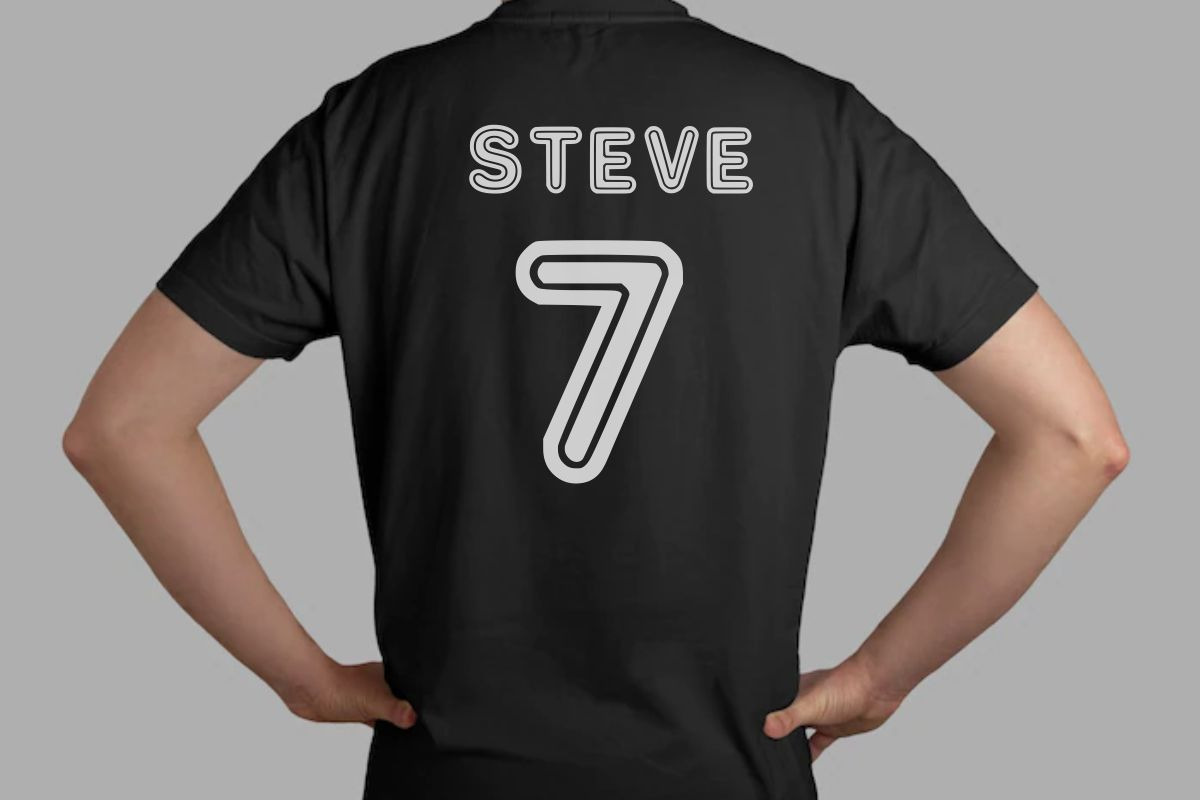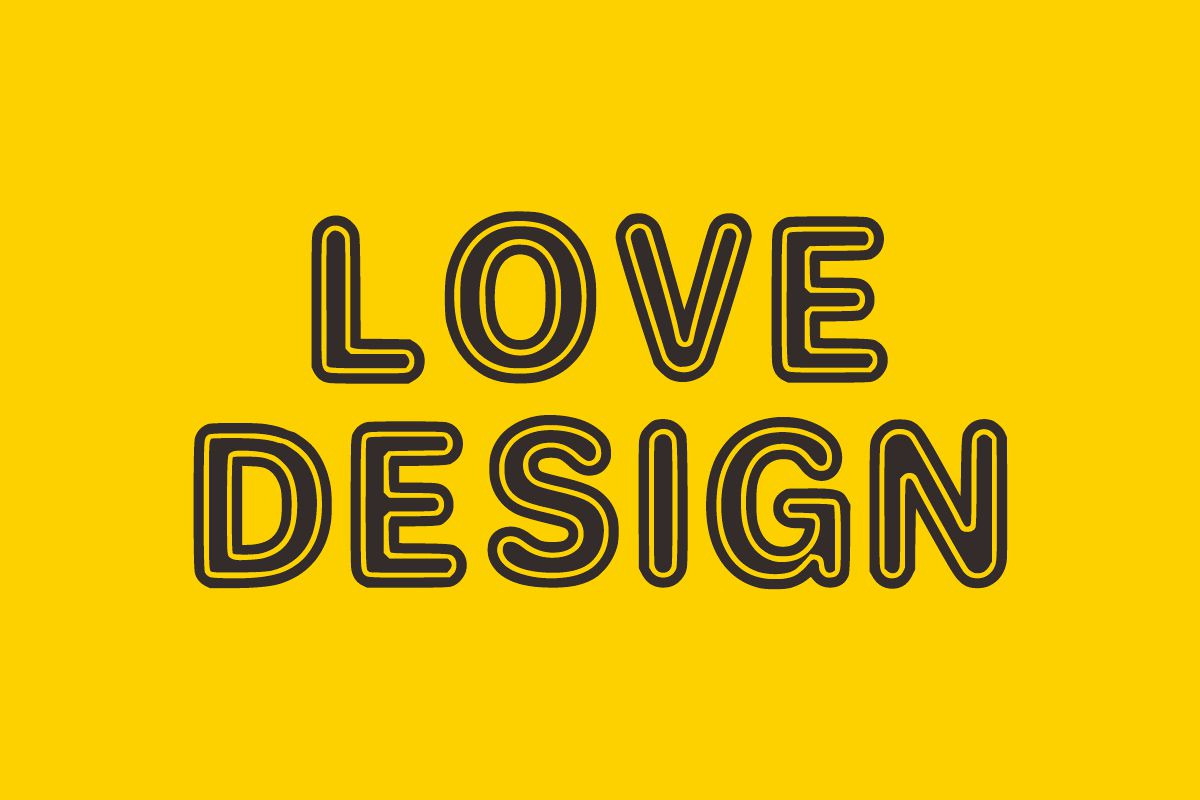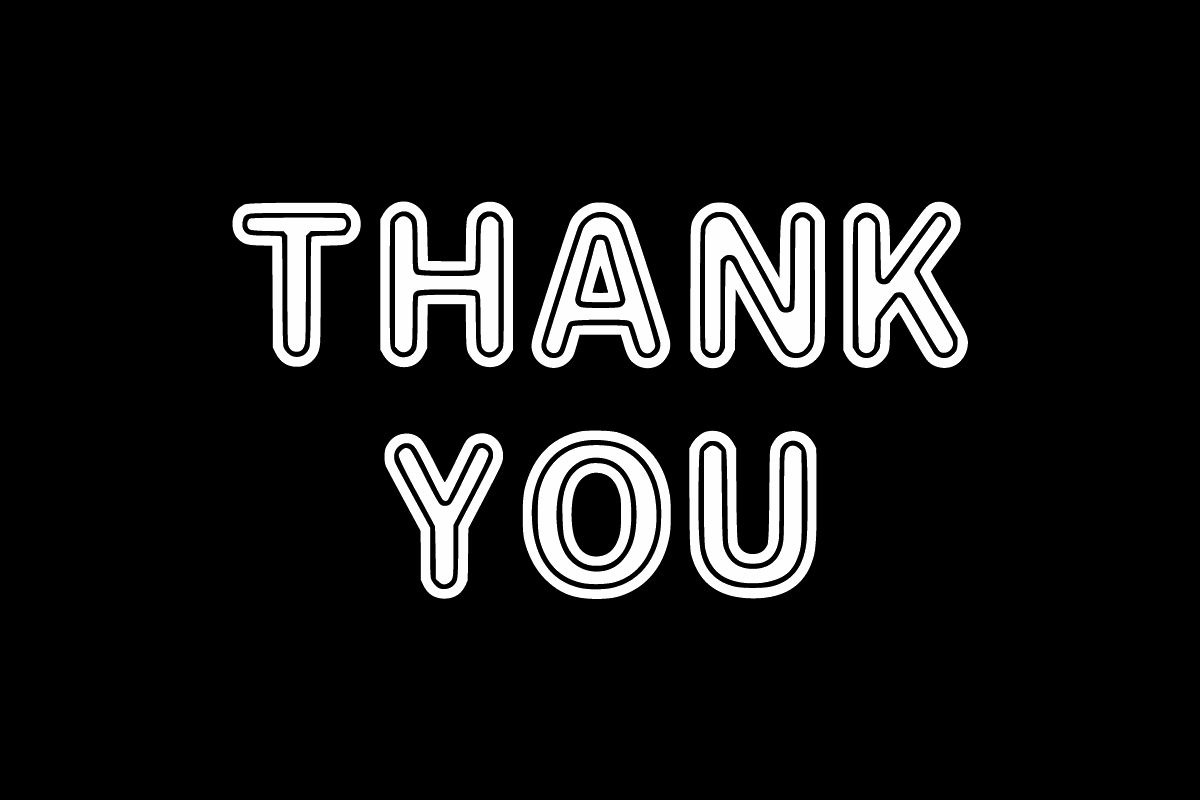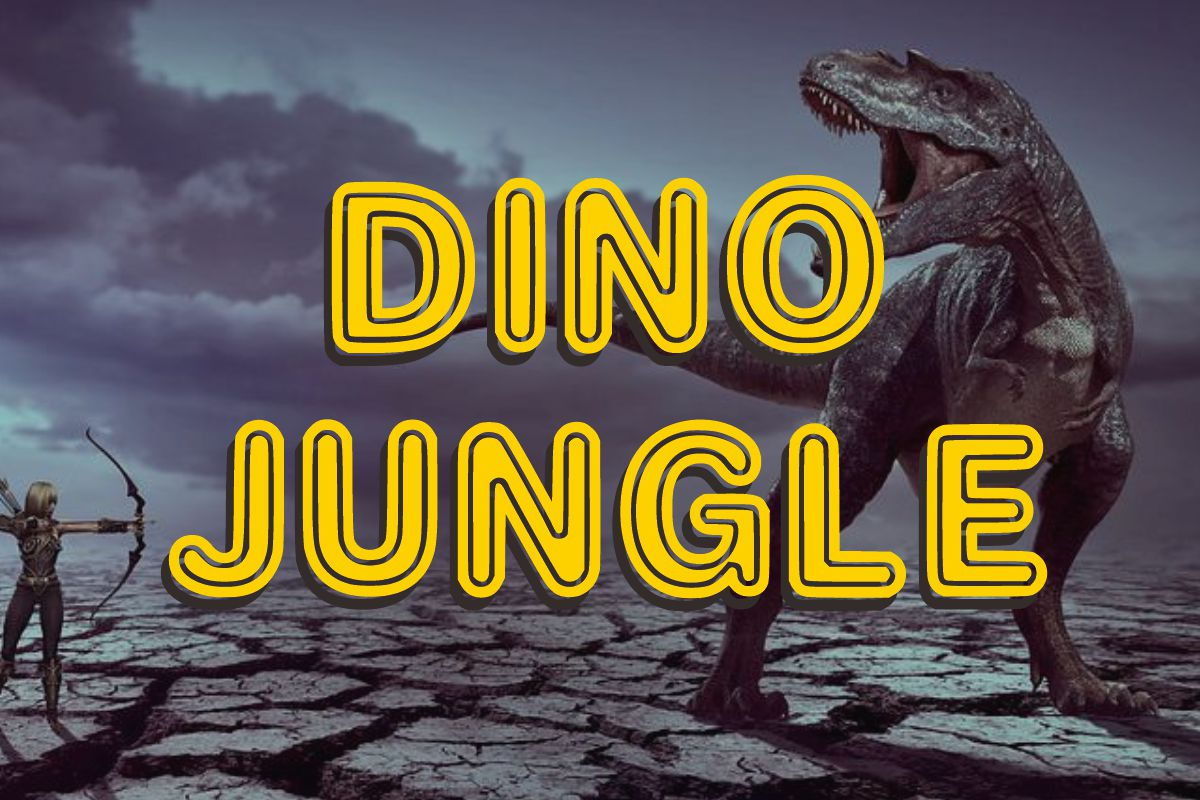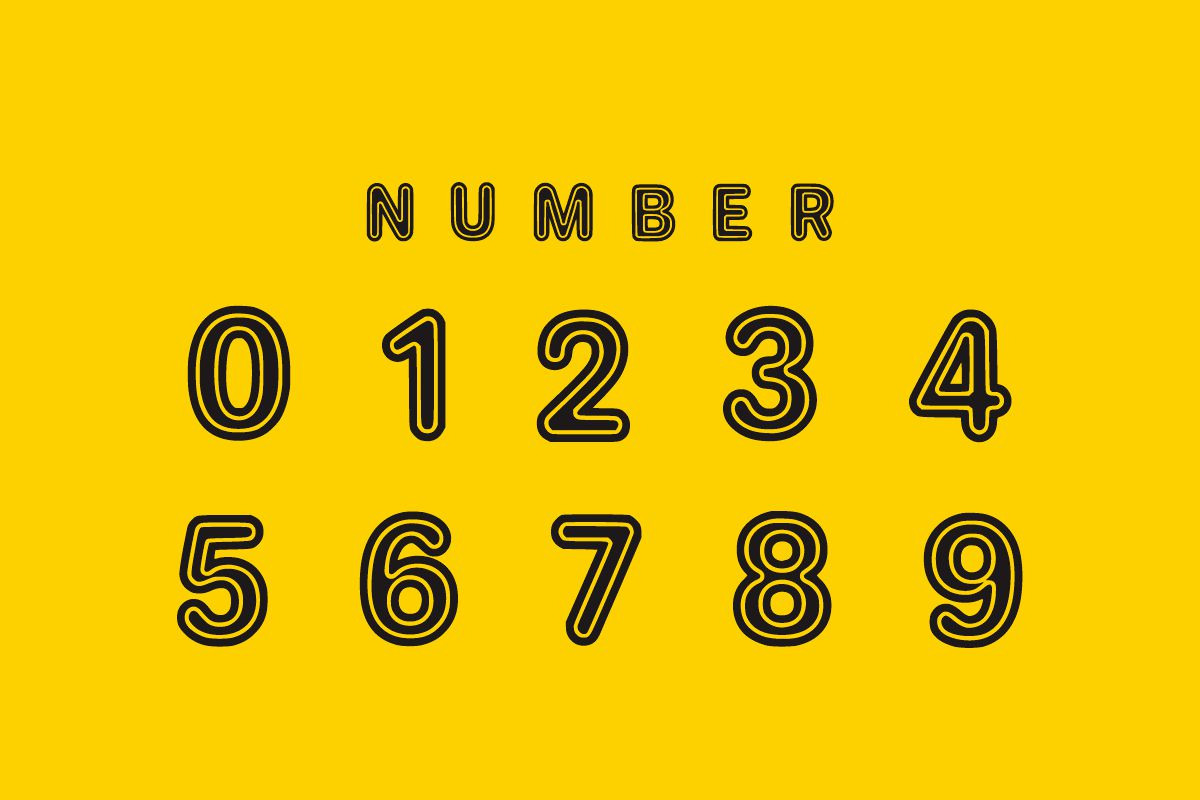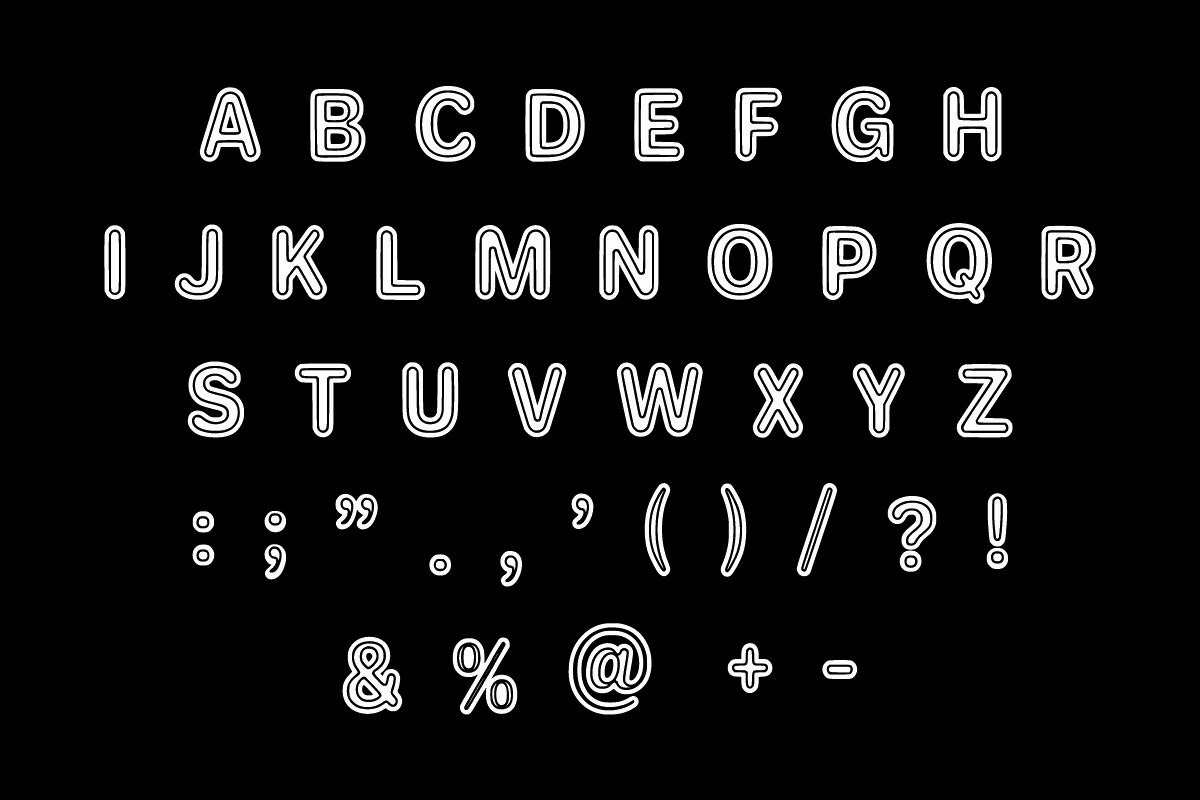
SUPER SAIYAN
Super Saiyan is a cool, bold and double outlined display font. No matter the topic, this font will be an incredible asset to your fonts’ library, as it has the potential to elevate any creation. Add it to each of your promotions, price tags, party invitations, gathering or pretty much any design that requires a touch of youth and joy.